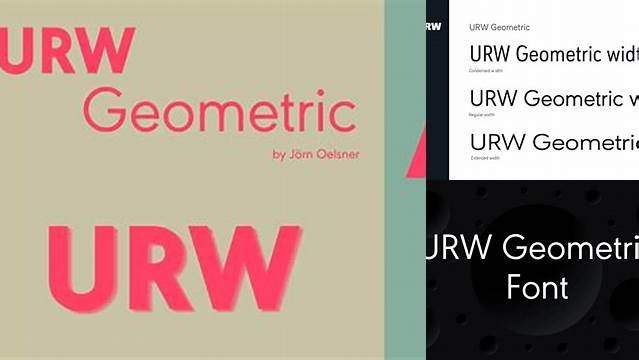
Hey guys, are you on the hunt for a sleek and modern font that screams sophistication? Well, you're in luck! Today, we're diving deep into the world of the URW Geometric Black font, a design marvel that's both versatile and visually stunning. And the best part? We'll show you how to get your hands on a free download! Buckle up because we're about to explore everything from its design features to where you can use it to make your projects pop. So, let's get started, shall we?
URW Geometric Black Font: A Deep Dive into Design
Alright, let's get down to the nitty-gritty of the URW Geometric Black font. What makes this font so special? The answer lies in its core design philosophy. This font is a member of the geometric sans-serif family. The design is rooted in geometric shapes and is known for its clean lines, sharp angles, and overall minimalist aesthetic. Think of it as a visual representation of precision and modernity. When you look at the font, you'll notice that the letterforms are constructed using basic geometric shapes like circles, squares, and triangles. This gives the font a unique character. This approach results in a harmonious and balanced appearance that’s easy on the eyes and super legible, which is essential whether you are designing a complex website layout or a simple poster. It's all about simplicity without sacrificing impact.
This font is typically available in a range of weights, from light to bold. This makes it versatile. You can use the lighter weights for body text, the regular weights for headings, and the bolder weights for emphasis. You're not just getting one font; you're getting a whole family that you can use to create a visual hierarchy in your designs. This is great for establishing visual interest.
The contrast between the straight lines and the curves creates a dynamic visual effect. This contrast helps to make the font stand out and grab the viewer's attention. This font is not only about aesthetics; it is also about functionality. The designers have paid close attention to the legibility of each character. This ensures that the font is easy to read at various sizes, making it a reliable option for both print and digital media. The geometric nature of the font makes it suitable for a wide range of applications, from branding and logo design to website layouts and editorial design. Its adaptability is one of its key strengths.
For those who are new to typography, understanding the design of the URW Geometric Black font is the first step to using it effectively. Knowing its characteristics will help you make informed decisions about when and how to use it, and this is key to any design project, helping you to convey the right message and evoke the desired emotions from your audience. This is more than just a font; it is a design tool that, when used correctly, can elevate your work. It's an excellent choice for anyone looking to bring a touch of modern elegance to their projects.
Exploring the Key Features of URW Geometric Black
Okay, let's break down the features of the URW Geometric Black font. First up, we've got the geometric construction. This is the cornerstone of its design. The letters are built from basic geometric shapes like circles, squares, and triangles, which gives them a clean and balanced look. Think about the 'O' or the 'C' – they’re perfect circles, simple and uncluttered. These geometric shapes create an overall visual harmony that makes the font pleasing to the eye. Next, we’ve got its legibility. Designers have optimized this font for readability, which is crucial in the design world. Even at smaller sizes, each letter is distinct and easy to identify. This is really important when using the font for body text or small headings. You want your audience to be able to read what you've written without straining their eyes.
Another key feature is the different weights available. Most font families offer a range of weights. The URW Geometric Black font is no exception. You'll find everything from light and regular to bold and black. This variety is what gives you flexibility in your designs. The lighter weights are fantastic for body text, while the bolder weights are great for headings, subheadings, or any area where you want to draw attention. The font's modern aesthetic is another standout feature. This font immediately evokes a sense of modernity and sophistication. It’s the kind of font you might see on a sleek website, a high-end product label, or in contemporary art.
Finally, the font's versatility is a big plus. It works well in many different contexts. Whether you’re working on a logo, a website, or a print design, this font fits right in. This versatility makes it a valuable addition to any designer's toolkit. The key features work together to make it a font that is aesthetically pleasing, highly readable, and incredibly adaptable. It’s a go-to choice for many design projects, and with its clean lines and modern vibe, it can take your designs to the next level.